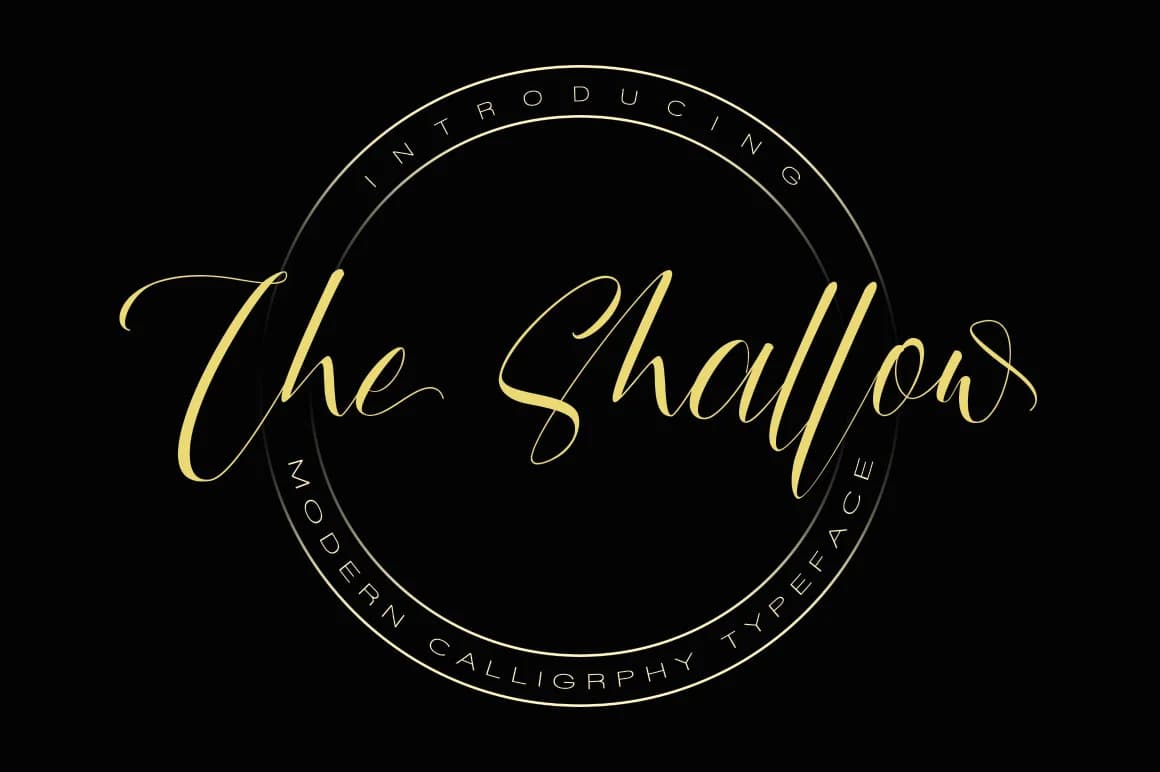
The Shallow by beeart009 is a handwritten script that balances clean sophistication with organic, naturally flowing letterforms. The design comes in two variations, The Shallow and The Shallow Alternate, giving you built-in flexibility to create layered compositions, alternate between styles within a single project, or develop visual hierarchy through typographic contrast. This dual-version approach works particularly well for wedding invitation suites where you might layer the two versions to create depth and textured elegance, or for designing custom greeting card collections that benefit from visual variety across multiple pieces. The natural stroke quality and stroke weight consistency make it equally suited to luxury product packaging, personal brand logos, hand-lettered social media graphics, and anywhere authenticity strengthens your message. Whether you're designing boutique cosmetics packaging, creating DIY craft sign projects, building personalized stationery collections, or crafting logo concepts for upscale brands, The Shallow's clean execution prevents the handwritten style from veering into casual or overly playful territory. The letterforms maintain legibility even at smaller sizes, making them genuinely versatile across both digital and print applications without compromising character. The two variations expand your creative toolkit, letting you mix styles for layered depth, create visual interest across projects, or simply choose the version that best matches your design direction. Get The Shallow on Creative Fabrica and start building designs with genuine hand-lettered character.
The Shallow Font is a script font that shines as a display or heading face. Pair it with a clean sans-serif or serif font for body text β the contrast creates a clear hierarchy while the two styles stay balanced and easy to read.
The Shallow Font
by beeart009